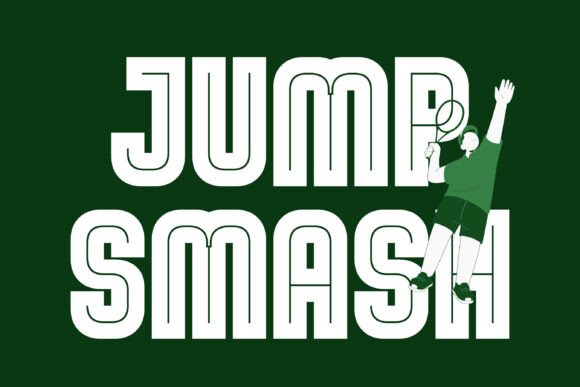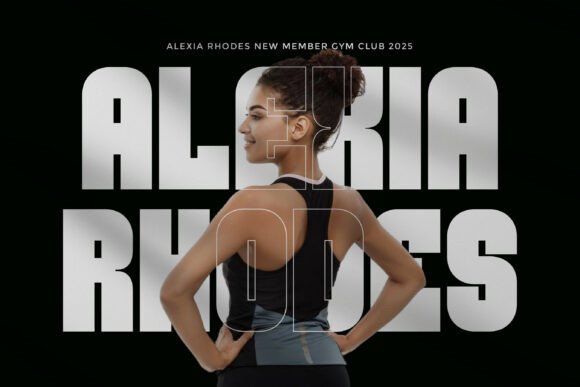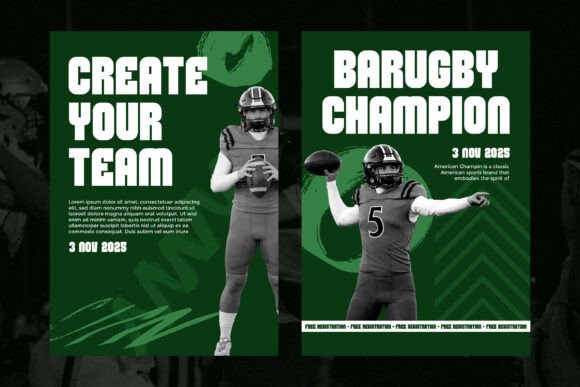
Introduction to Quickz Font
As designers, we’ve all been there – staring at a blank canvas, searching for the perfect font to bring our creative project to life. It’s a moment of truth, where the right choice can make or break the entire aesthetic. That’s why I’m excited to share with you the Quickz Font, a game-changing addition to any design resource.
Quickz Font is more than just a typeface – it’s a powerful tool that can elevate your designs to the next level. With its bold letterforms, clean geometry, and powerful proportions, this modern sport display typeface is designed to deliver a confident and energetic look that stands out in any sports-related design.
Key Features of Quickz Font
- High-quality design resource suitable for various creative projects, including logos, graphics, and typography.
- Unique, modern design with a transparent background, allowing for easy layering and composition.
- Perfect for designers, artists, and creatives seeking a versatile and stylish font for their projects.
Honest Review: Quickz Font
I recently had the chance to work with the Quickz Font on a creative project and I must say, it was a great experience. The font is definitely a high quality design resource that can elevate any project.
- ✨ The transparent background is a nice touch, allowing for easy integration into various design elements.
- ✨ The font is highly customizable, making it easy to adjust to different design styles.
- ⚠️ Some users may find the font a bit too bold or overpowering for certain design applications.
Overall, I’m quite impressed with the Quickz Font. It’s a great addition to any design arsenal, and its free download makes it a valuable resource for creatives. While it may have some limitations, the benefits far outweigh the drawbacks.
How to Use Quickz Font
The Quickz Font is a high-quality design resource that can elevate your creative project with its unique and stylish design. With a transparent background, you can easily integrate it into your design.
The Quickz Font is ideal for designing creative projects such as social media graphics, posters, flyers, and brochures. It’s also perfect for presentations and documents that require a professional and stylish look.
Getting the Most Out of Quickz Font
To get the most out of the Quickz Font, use it in combination with other design elements such as images and graphics. Experiment with different font sizes and colors to create a visually appealing design. You can also use the font in conjunction with other design resources such as shapes and icons.